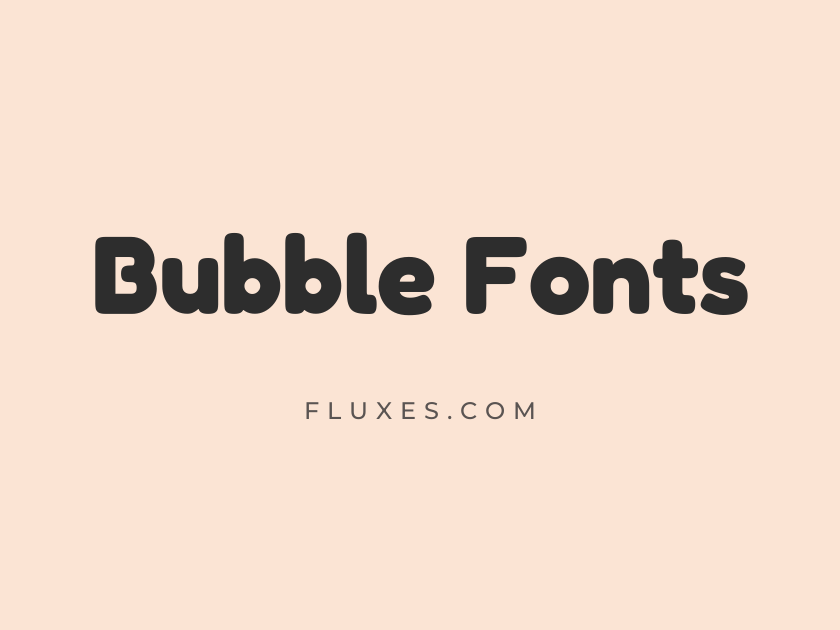
51 Best Bubble Fonts
Bubble fonts bring a plump, inflated playfulness to type that no serious serif or sober sans can match. They show up on birthday invitations, candy packaging, kids’ apparel, bubble tea menus, mobile game logos, and any social post that needs to feel friendly rather than formal. The good news for designers is that free bubble fonts on Google Fonts cover an enormous range, from cartoon-thick display letters to softly rounded body text, so you rarely need to pay for a chunky, rounded, or balloon-style typeface.
What follows is a wide sweep of genuinely round, chunky, or pop-lettered Google Fonts, including several rounded families built for Korean, Japanese, Chinese, and South Asian scripts that ship with strong Latin companions and bring fresh bubble-letter flavor rarely seen in Western-only round-ups.
Pop the balloons and start the party
Fredoka is the reigning favorite for anyone typing “bubble font” or “rounded font” into a search bar. Its bold weight puffs out into soft, toy-like curves that feel instantly cheerful, and the variable font gives you a full range from light to bold in one file.
It reads beautifully at large display sizes for logos and app icons, and pairs nicely with a plain rounded sans for body copy.
Bubblegum Sans
Chewy bubble letters for candy shop signs
Bubblegum Sans
True to its name, this one leans into a sticky, gum-drop roundness that suits kids’ branding, birthday party graphics, and anything craving a sugary mood.
Squishy cartoon lettering for playful headlines
Chewy has been a go-to bubble letter font for years, with thick, doughy strokes and slightly uneven curves that evoke hand-carved cartoon signage. It works best short and large; at small sizes the interior counters can clog up.
Big bold bubble type for game logos
Few free fonts nail the classic comic-poster bubble look like this one. Thick, leaning strokes and rounded terminals give headlines real punch, which is why it turns up constantly on game titles, sports graphics, and meme text.
Friendly rounded shapes for a cheerful brand
Sniglet keeps its bubble quality gentle rather than shouty. The bold weight fattens up nicely for headlines while staying legible, making it a solid pick for children’s book covers or nursery branding.
Soft rounded corners for a modern app
This one trades cartoon exaggeration for a cleaner, more contemporary rounded sans. It suits UI text, app onboarding screens, or any brand that wants a hint of bubble softness without looking childish.
Geometric bubble letters with a calm feel
Comfortaa rounds every terminal into a perfect curve, giving it a understated, almost architectural bubble quality. It reads more grown-up than most fonts on this list, so it works well for wellness brands, tech logos, or minimalist packaging that still wants softness.
Concert One
Bouncy bold type for a bakery menu
Concert One
Concert One has a friendly, slightly squashed roundness that feels handmade rather than digital. Its heavier strokes make it a dependable headline font for food branding and event flyers.
Thick outlined bubbles for sticker art
Built with a heavy outline and inflated body, Titan One practically begs to be filled with gradients or textures. It is a favorite for sticker packs, YouTube thumbnails, and anything that needs to shout from a phone screen.
Retro bubble swagger for a diner sign
Boogaloo channels 1970s poster lettering, with a slight forward lean and generous curves. It brings personality to retro-themed branding, record covers, and anything nostalgic for bubble letter culture.
Kranky
Wobbly bubble letters for spooky fun
Kranky
Kranky’s uneven, slightly warped forms give it a handmade, faintly eerie charm, which makes it an unexpected but effective choice for Halloween graphics or quirky kids’ content that wants character over polish.
Grandstander
Bouncy playful type for a birthday card
Grandstander
Grandstander is a variable font with a springy, bouncing baseline built right into its design. It suits headlines that need movement and energy, and the wide weight range means it can dial from friendly text to full bubble boldness.
Mochiy Pop One
Soft mochi-round letters for a pop label
Mochiy Pop One
Designed in Japan, Mochiy Pop One takes its name seriously: the letterforms are as round and squeezable as the rice cake they reference. It brings an authentic J-pop, kawaii energy that’s hard to fake with Western fonts alone.
Mochiy Pop P One
Proportional mochi lettering for playful packaging
Mochiy Pop P One
This is the proportionally spaced sibling of Mochiy Pop One, tightening up the spacing for a denser, punchier feel in short headlines and logotypes. Choose it over its counterpart when you need compact bubble lettering rather than generous letterspacing.
Bubble lettering photographs and screenshots well, which makes it a strong choice for social media graphics, packaging mockups, and app icons where a typeface needs to grab attention in a small thumbnail.
With this many free, genuinely rounded and chunky options available on Google Fonts, there is rarely a reason to reach for a paid bubble typeface. Download a few, test them against your actual content, and let the roundest, friendliest option win.